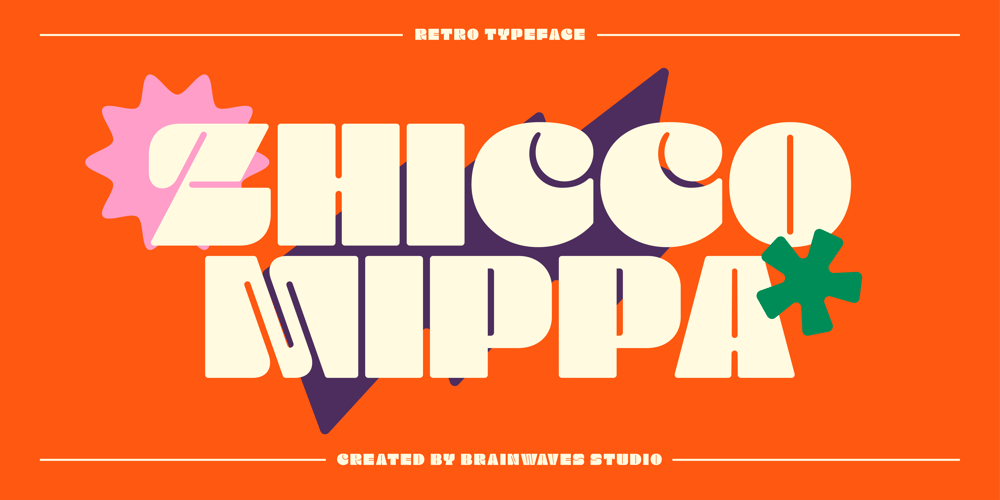
Zhicco Mippa Font Family was designed by Elhaq Farid and published by Brainwaves Studio. Zhicco Mippa contains 2 styles and family package options. Hello,Intoduce our font ZHICCO MIPPA, the font we made it for retro taste with bold style, the font its good for retro, minimalist retro, modern retro. Good combined with retro mascot or minimalist character design.The character included Uppercase Lowercase Number Symbol multilingual